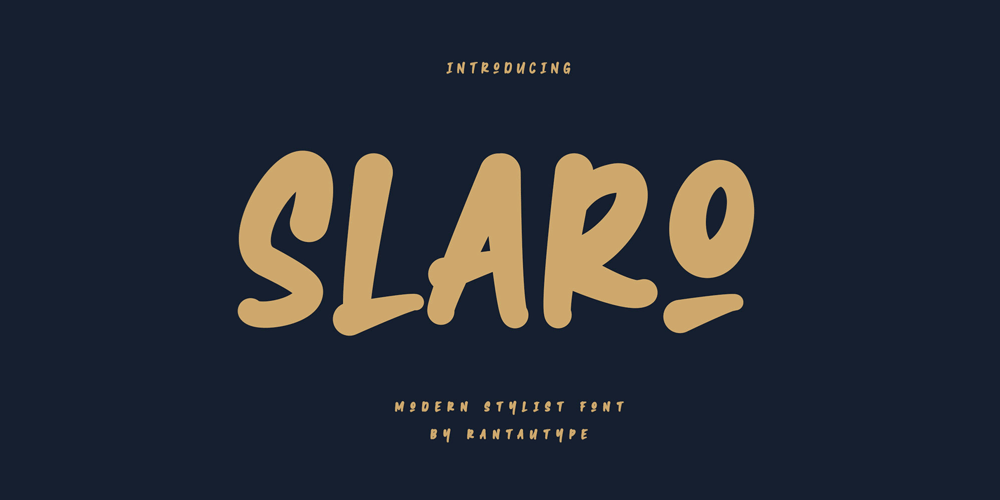
Slaro Font Family was designed by Yudi Pratama Chandra and published by RantauType. Slaro contains 3 styles and family package options. Proudly present bold modern authentic font “Slaro”. Every single curve has my personality touch. Slaro is bold and stylist font, it is great for making logotype, branding, promotional ads, quotes design, packaging, t-shirt design. merchandise, poster, merchandise, social media and much more. I also make slaro separated in reguler , ligature and decorative so you can easy to make more creative font. Slaro is here to make your work or your business to high level!!!What you have Standert character A-Z and a-z Numberial and Functional Ligature Multilinggual support Works on PC & Mac Simple installations Accessible in Adobe Illustrator, Adobe Photoshop, Adobe InDesign, even work on Microsoft Word. Thank you for your purchase!Hope you enjoy with our font!